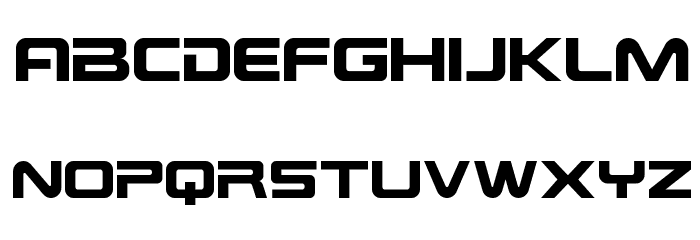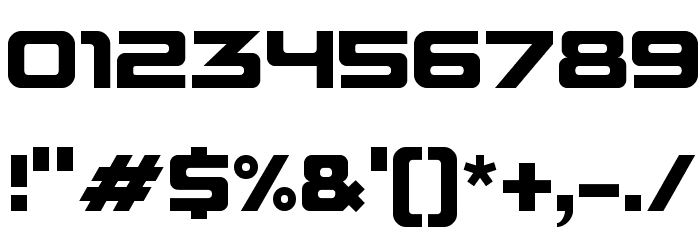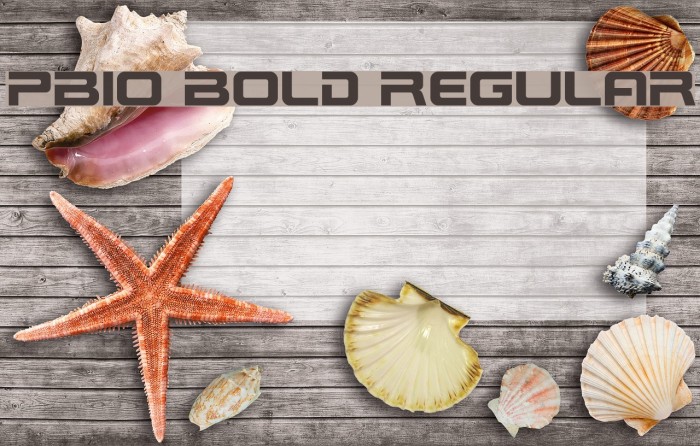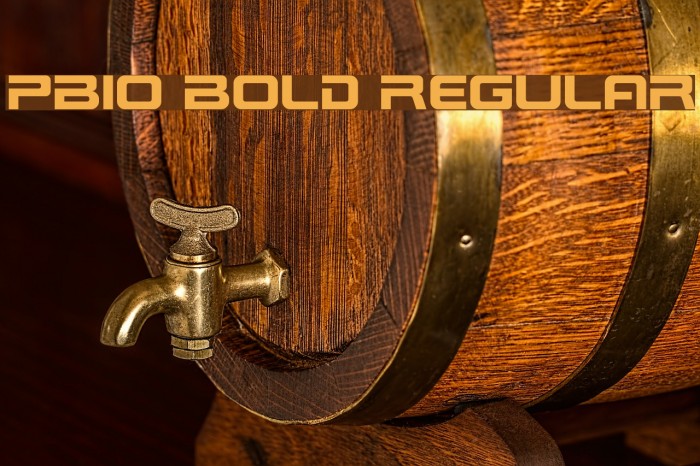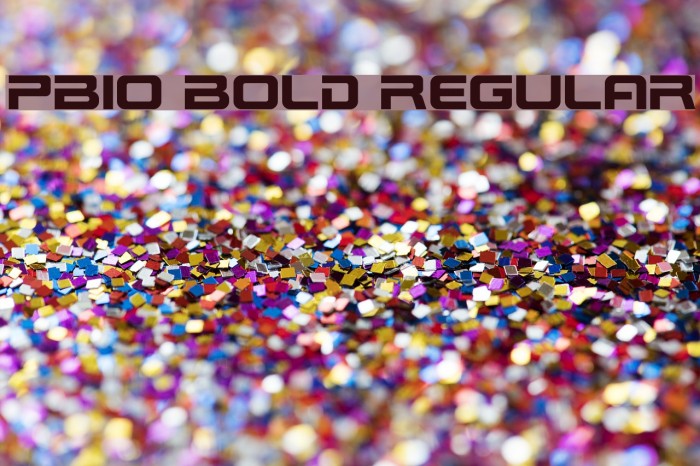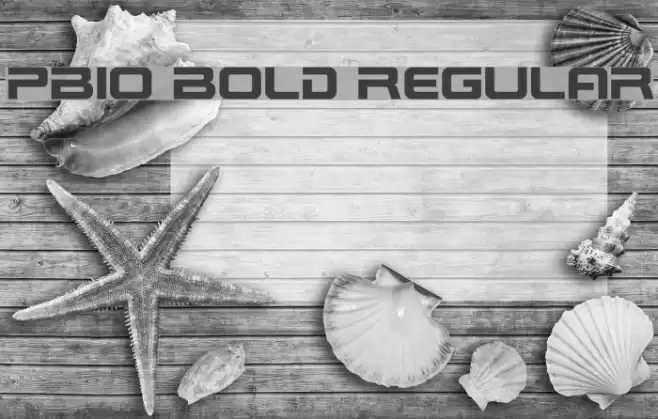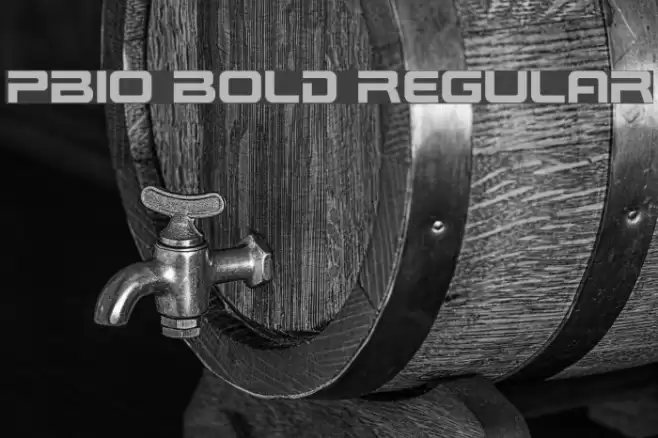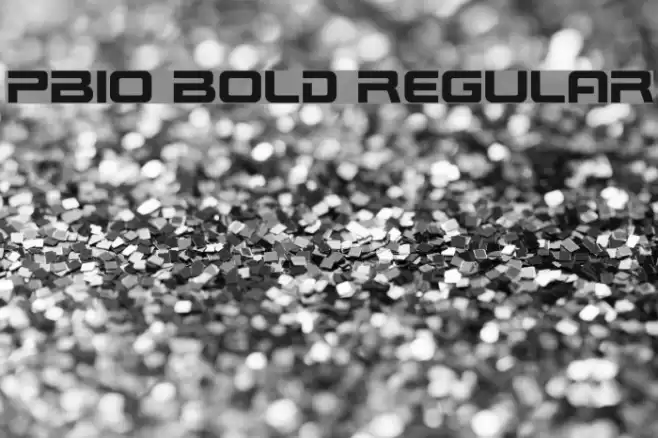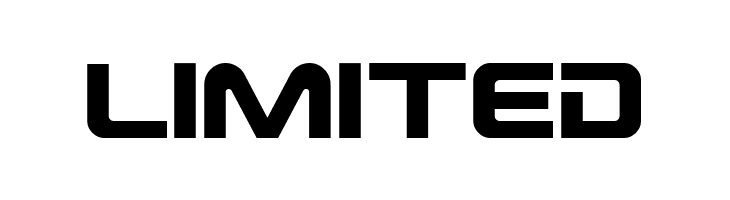
PBIO Bold Regular Font
This font features a bold and geometric design with a modern aesthetic. The characters are constructed with thick, uniform strokes, giving them a strong and impactful appearance. The uppercase letters are particularly striking, with sharp angles and a futuristic feel. The numbers and special characters maintain the same boldness and geometric style, ensuring consistency across all elements. The font's clean lines and solid structure make it highly legible, even at smaller sizes. Its contemporary design is suitable for a variety of applications, from digital interfaces to print media.
- Proposed Projects: Ideal for technology branding, digital interfaces, posters, and modern advertising campaigns.
- Use Case: Headlines, Logos, Digital interfaces